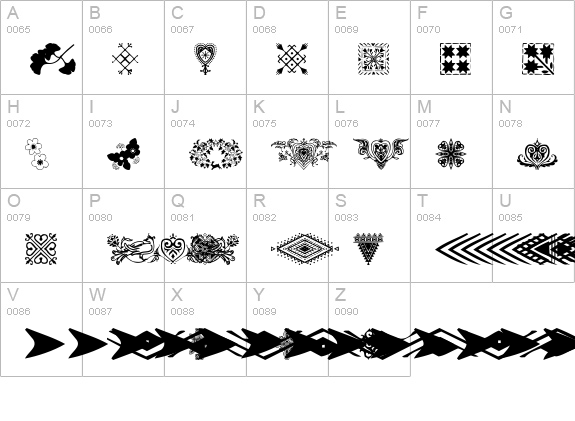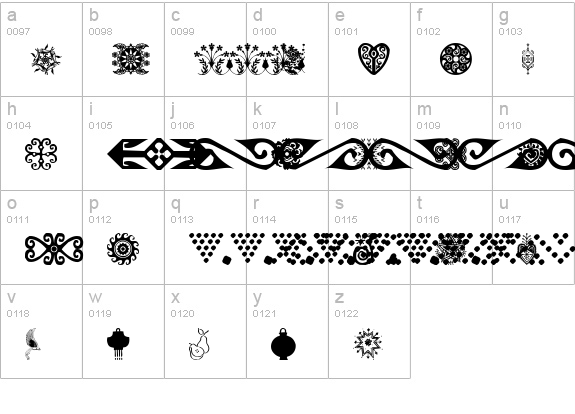
Designer Stuff font is a stylish and modern typeface that exudes creativity and sophistication. With its sleek lines and contemporary design, this font is perfect for adding a touch of elegance to your projects. Whether you're working on a branding, logo design, or any other creative endeavor, Designer Stuff font is sure to make a statement. Best of all, Designer Stuff font is completely free to download at FontsMarket.com. This means you can elevate your designs without breaking the bank. Don't miss out on this fantastic opportunity to enhance your work with a high-quality font that won't cost you a penny. Download Designer Stuff font today and let your creativity soar!